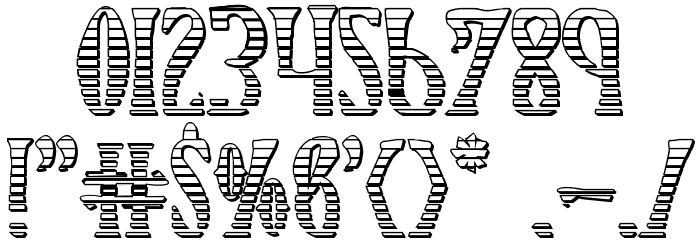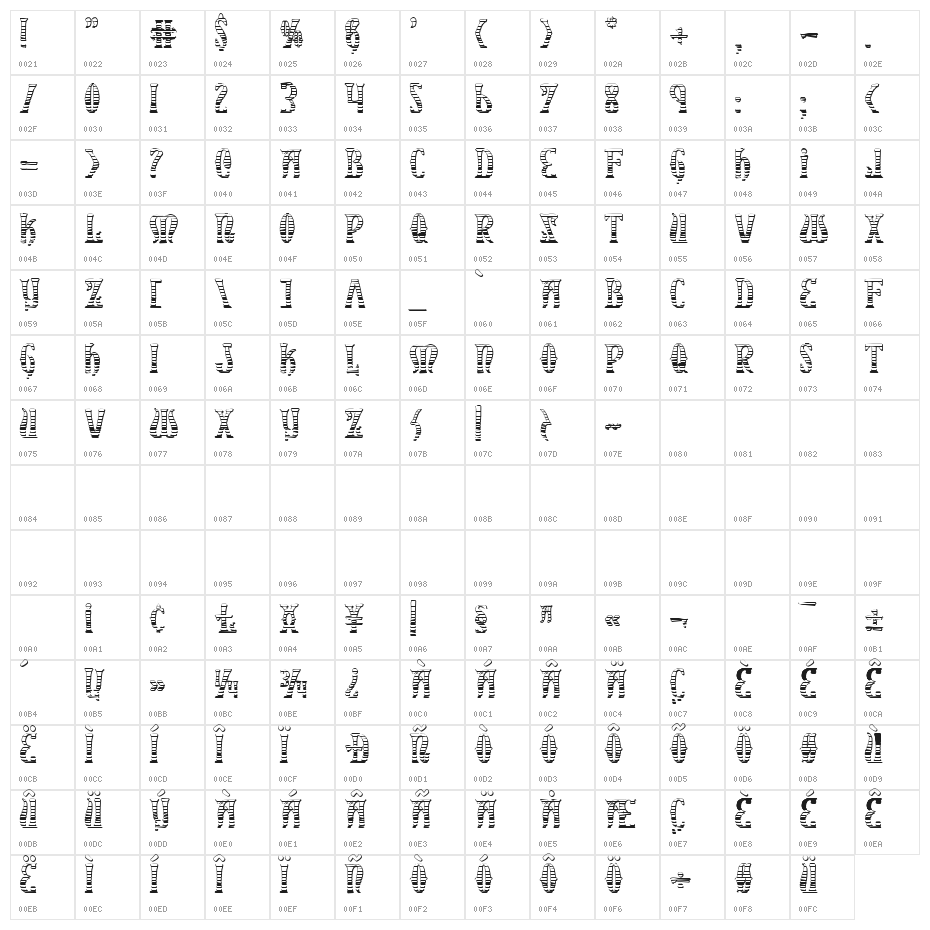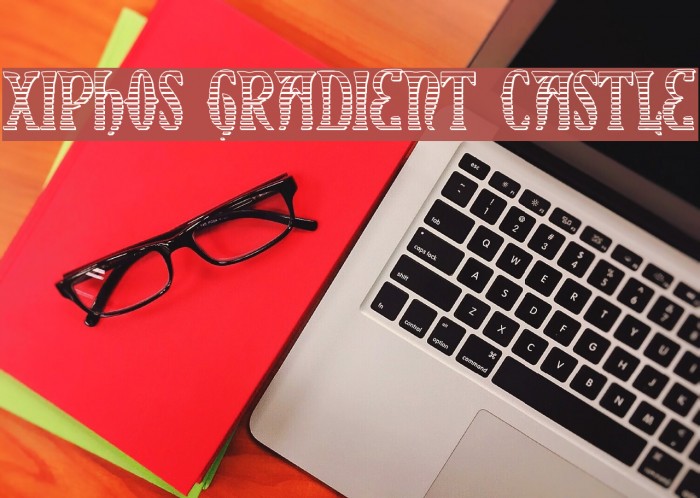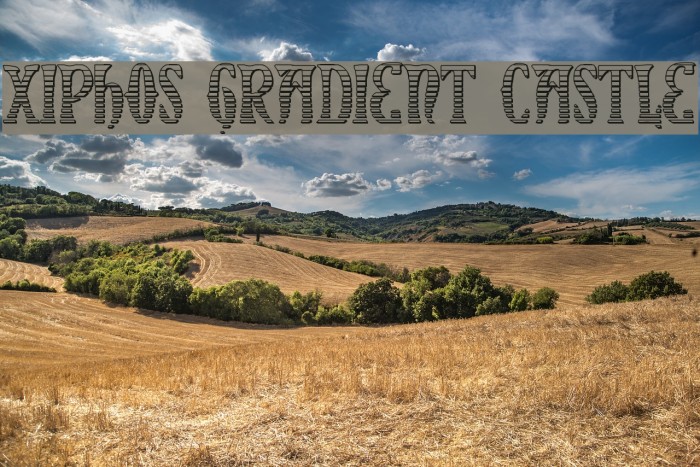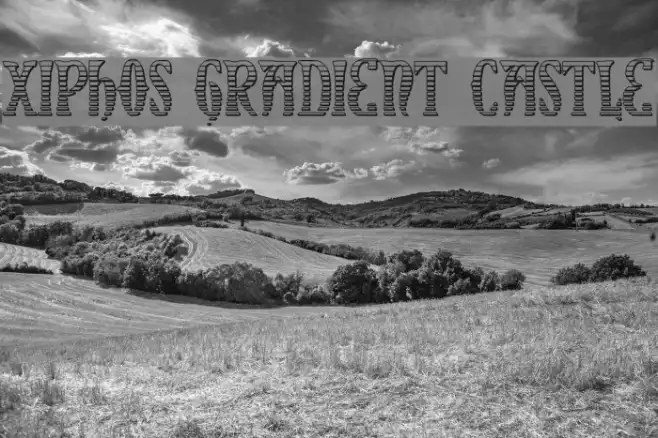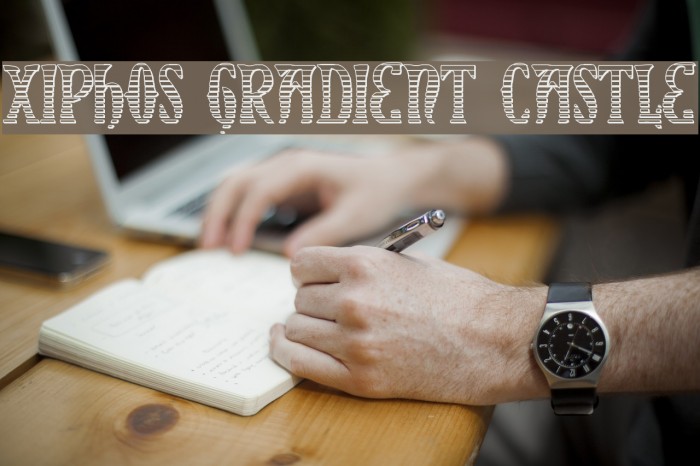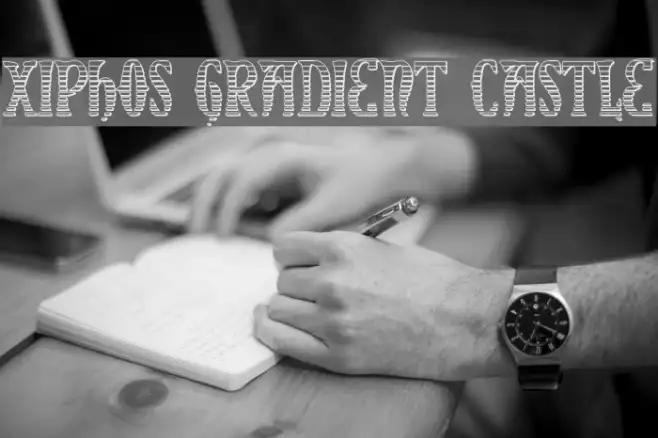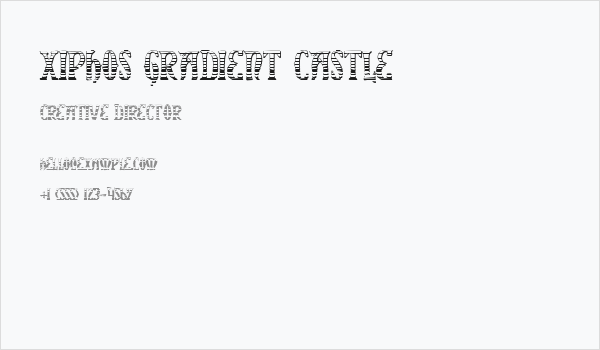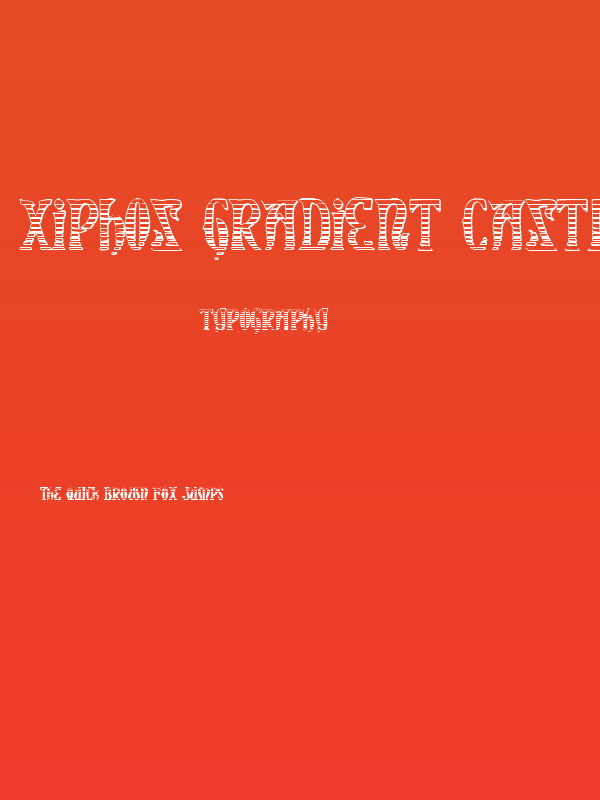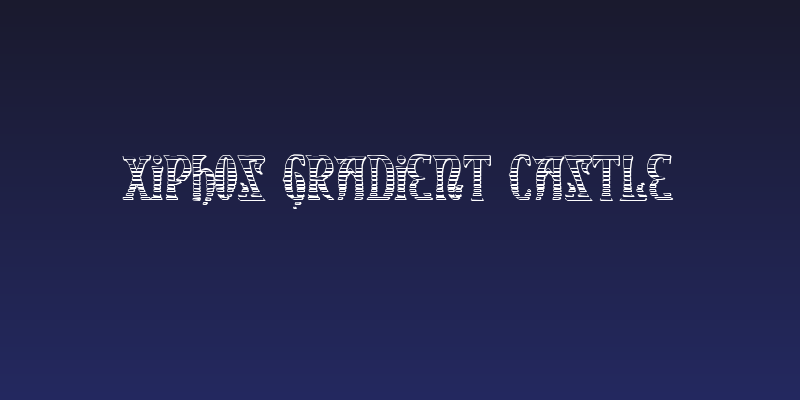
Xiphos Gradient Castle Font
Xiphos Gradient Castle Description
This font features a unique, decorative style with a striped, gradient effect that gives each character a three-dimensional appearance. The uppercase letters are bold and commanding, with intricate detailing that resembles a castle-like structure. The lowercase letters maintain the same decorative theme, offering a cohesive look across the alphabet. Numbers and special characters are equally stylized, making them stand out with the same bold, striped pattern. The overall design is eye-catching and suitable for projects that require a strong visual impact.
| Proposed Projects | Ideal for fantasy-themed projects, posters, book covers, and branding that requires a strong, decorative typeface. |